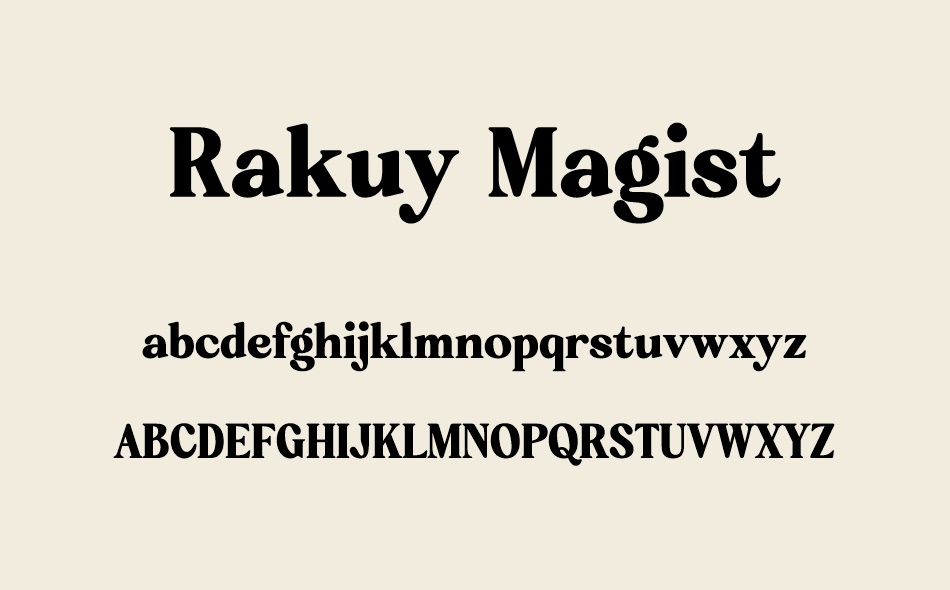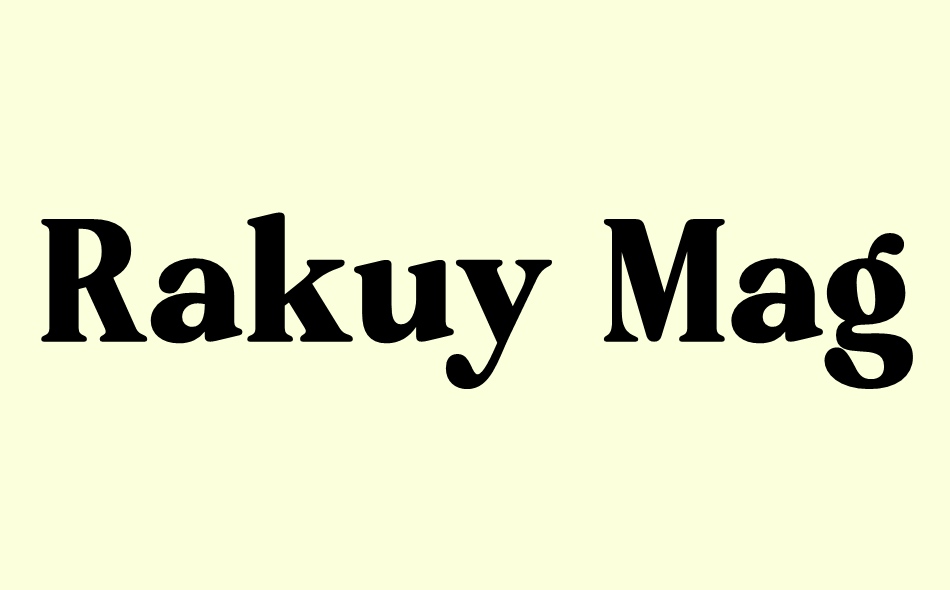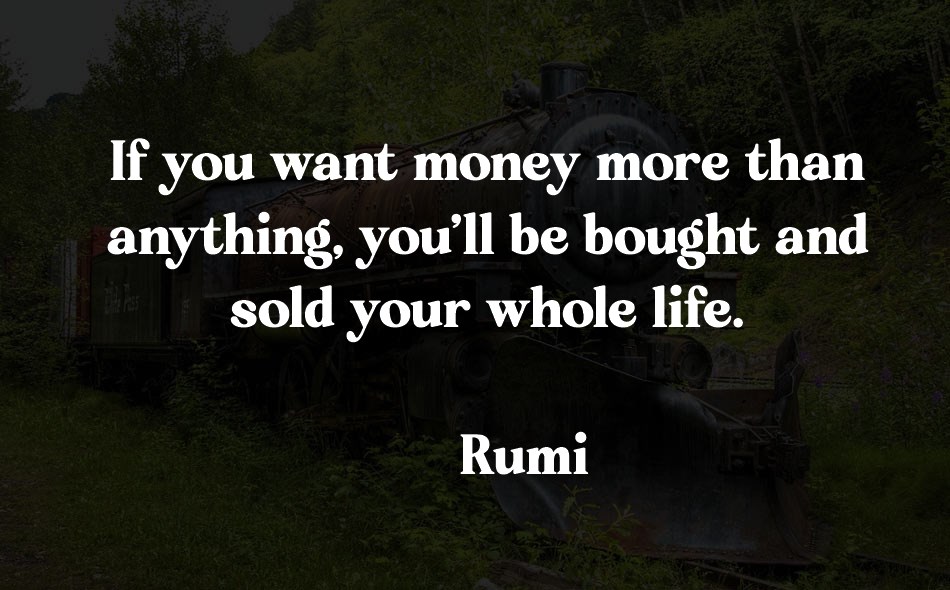
Rakuy Magist font
Unlock the power of expressive display typography with Rakuy Magist - Modern Retro Stylish, a stunning typeface engineered for maximum visual impact. This font flawlessly captures the nostalgic energy of 1970s graphics while delivering clean, contemporary readability. Its defining characteristics are the exaggerated, smooth curves and the robust, solid weight that commands attention, making it an instantly memorable choice for any headline or logotype needing a distinctive, retro-glamour aesthetic.
Elevate your design projects with unparalleled creative flexibility, thanks to the vast collection of OpenType features inherent in Rakuy Magist - Modern Retro Stylish. Featuring dozens of alternates and ligatures, this font is a playground for typographic exploration, allowing designers to sculpt custom wordmarks and flowing headers. The deliberate inclusion of intricate swashes transforms standard copy into truly high-impact, bespoke artwork, ensuring your branding stands out from the competition.
Expand your reach across international boundaries effortlessly using this professionally optimized typeface. With its extensive multilingual support, Rakuy Magist - Modern Retro Stylish adapts seamlessly across global markets, making it incredibly versatile for international projects. This comprehensive language coverage ensures that your brand message maintains its stylish integrity and clarity, regardless of the target demographic or linguistic requirement.
Define your market presence with confidence and unique style. Rakuy Magist - Modern Retro Stylish is perfect for large-scale editorial titles, bold product packaging, music album art, and especially luxury branding within the lifestyle sector. Its strong character is ideal for creating memorable identity systems, vibrant event posters, and anything that demands a sophisticated blend of vintage charm and modern authority. Invest in this typeface to ensure your visual identity is both timeless and strikingly current.